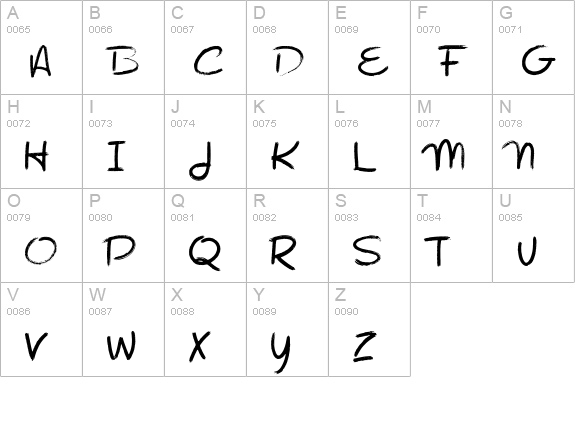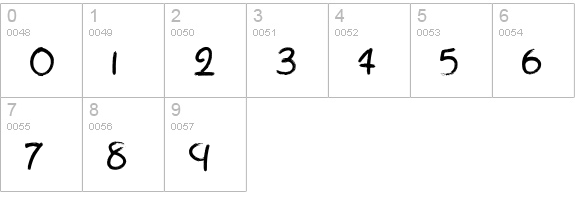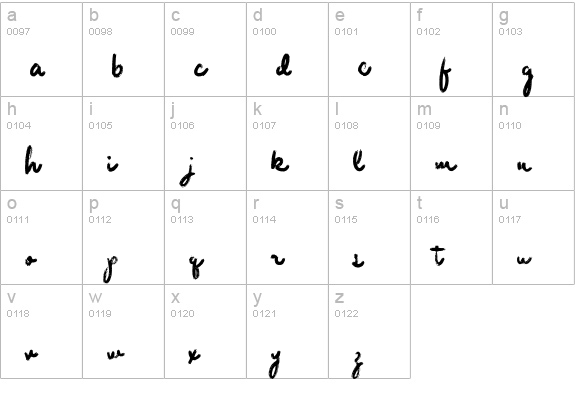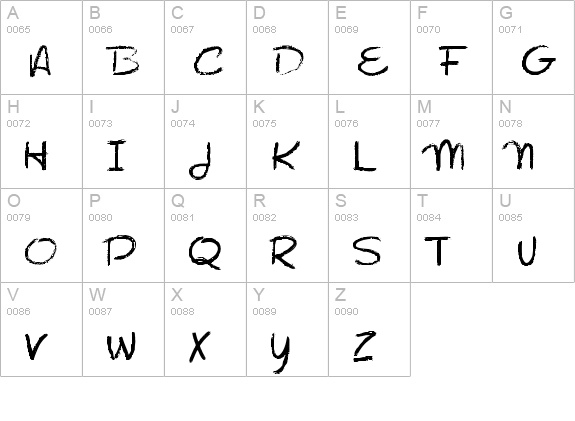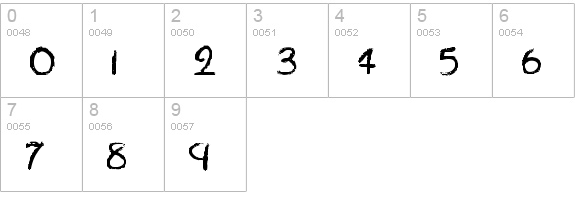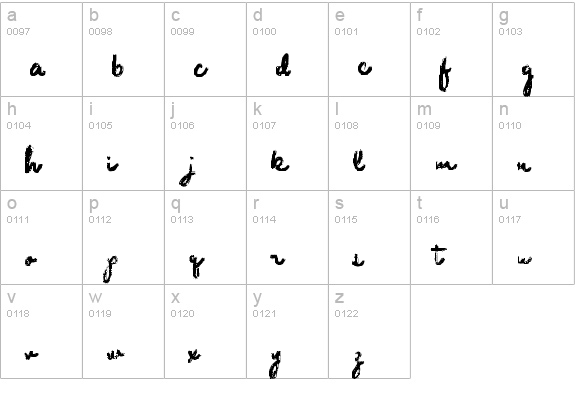
Rough Br Script Regular is the standard, neutral variant in the Rough typeface family \xE2\x80\x94 well suited to general body text, paragraphs, and standard typographic work.
Rough Br Script Regular font is a charming and versatile typeface that exudes a handcrafted and authentic feel. With its rough edges and unique brush strokes, this font adds a touch of personality and character to any design project. Whether you're looking to create a rustic and organic look or a trendy and modern design, Rough Br Script Regular font is the perfect choice. The best part about Rough Br Script Regular font is that it is completely free to download at FontsMarket.com. This means you can easily access and use this stylish font for all your personal and commercial projects without any cost. So why wait? Download Rough Br Script Regular font now and add a touch of creativity to your designs.